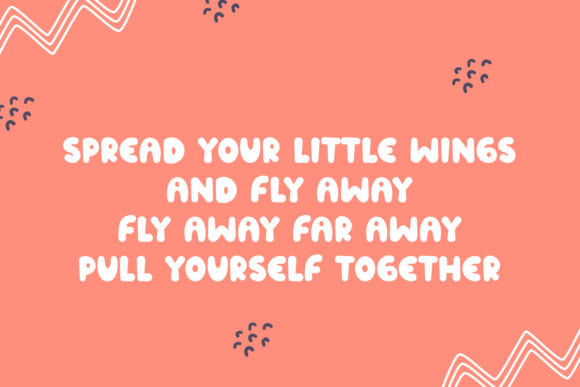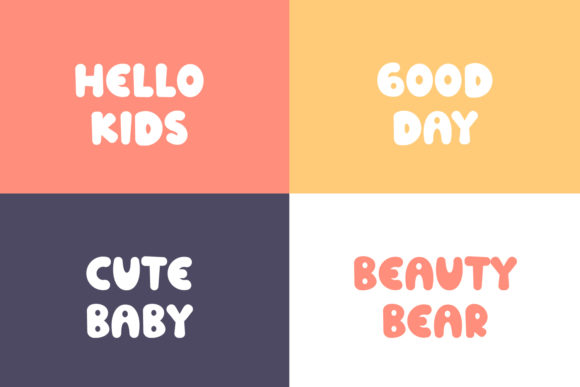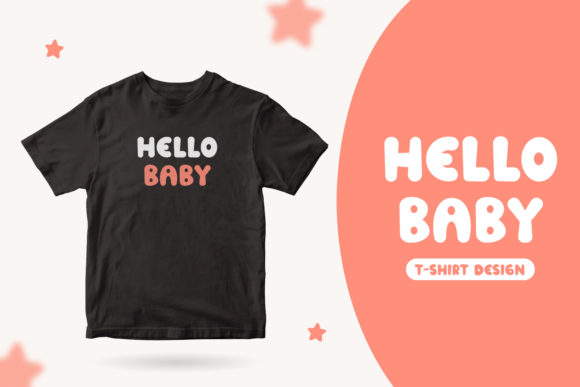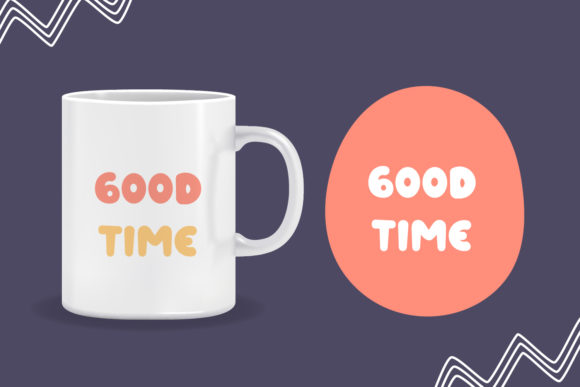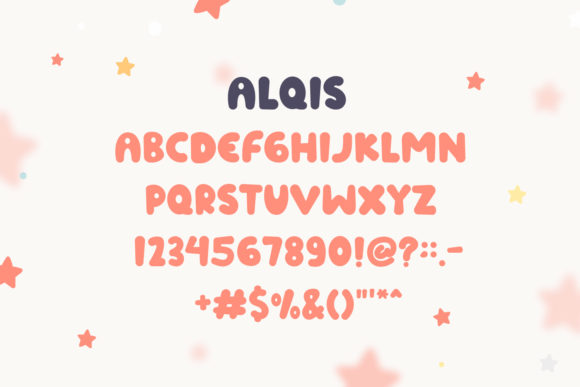
Introducing Alqis Font: A Bold Display Font for Creative Designs
Are you looking for a font that can add a touch of playfulness and creativity to your designs? Look no further than Alqis Font! This bold display font is perfect for a wide range of designs, from kids’ projects to school assignments, and is sure to brighten up any creative endeavor.
Timeless Style for Versatile Designs
One of the standout features of Alqis Font is its timeless style. Unlike trendy fonts that may quickly go out of style, Alqis has a classic look that will remain relevant for years to come. This makes it an excellent choice for designers and crafters who want to create projects that will stand the test of time.
Childlike Playfulness for Kids and School Projects
Alqis Font is particularly well-suited for kids and school projects, thanks to its childlike playfulness. The font’s bold and playful design is sure to capture the attention of young learners and make any project more engaging and fun. Whether you’re creating a worksheet, a poster, or a presentation, Alqis Font is the perfect choice.
Perfect for a Wide Range of Designs
Alqis Font is not just limited to kids and school projects. Its versatility makes it suitable for a wide range of designs, including:
• Advertising and marketing materials
• Branding and logo design
• Web design and development
• Print materials, such as brochures and flyers
Key Features of Alqis Font
So, what makes Alqis Font so special? Here are some of its key features:
• Bold and playful design: Alqis Font is designed to make a statement, with a bold and playful look that’s sure to grab attention.
• Timeless style: Unlike trendy fonts, Alqis has a classic look that will remain relevant for years to come.
• Highly legible: Despite its bold design, Alqis Font is highly legible, making it perfect for use in a variety of contexts.
Tips for Using Alqis Font
Here are some tips for getting the most out of Alqis Font:
• Use it sparingly: While Alqis Font is bold and playful, it can be overwhelming if used excessively. Use it sparingly to add emphasis and create visual interest.
• Experiment with colors and textures: Alqis Font looks great in a variety of colors and textures. Experiment with different combinations to find the one that works best for your design.
• Pair it with other fonts: Alqis Font can be paired with other fonts to create a unique and interesting design. Try pairing it with a sans-serif font for a bold and modern look.
In conclusion, Alqis Font is a bold display font that is perfect for a wide range of designs. Its timeless style and childlike playfulness make it an excellent choice for kids and school projects, while its versatility makes it suitable for a variety of other applications. With its key features, ease of use, and flexibility, Alqis Font is a must-have for designers and crafters looking to add a touch of creativity and playfulness to their designs.